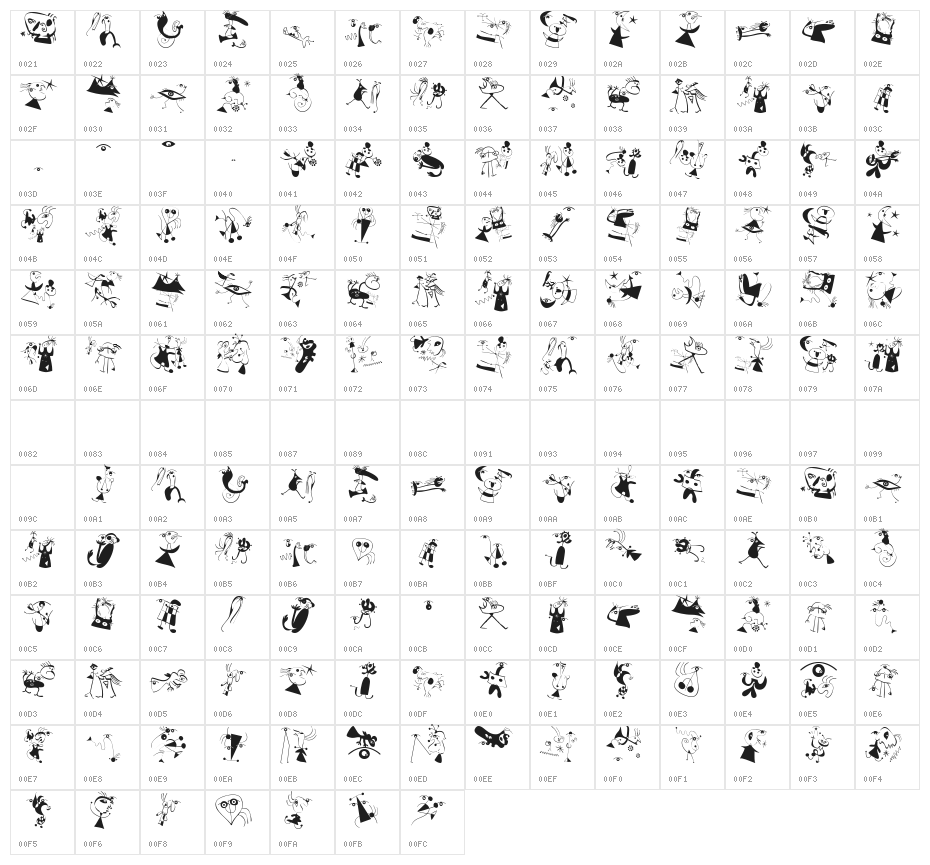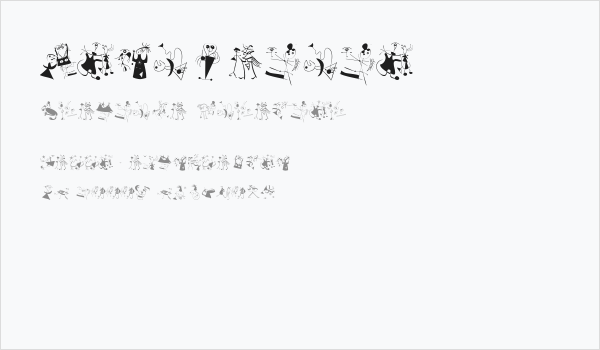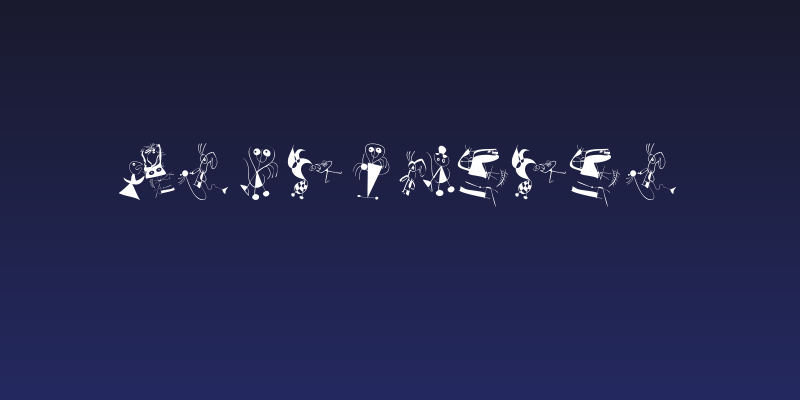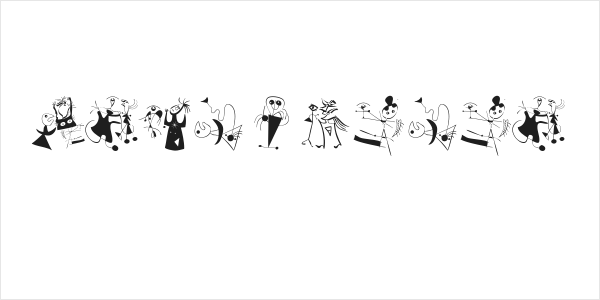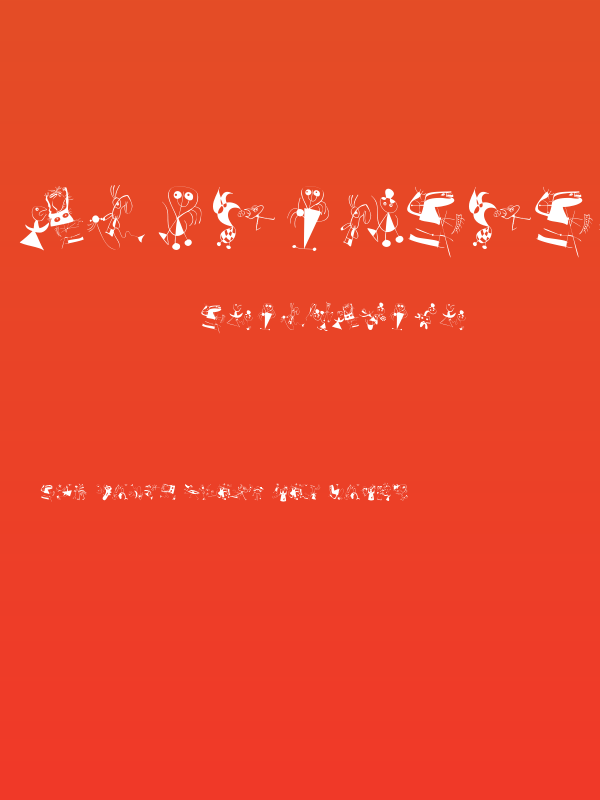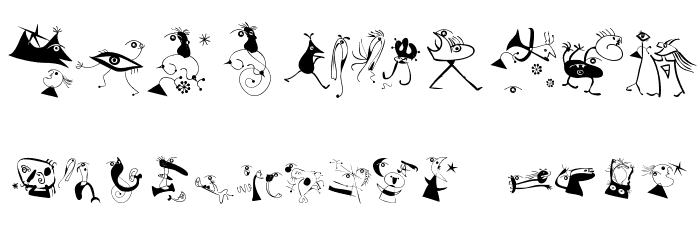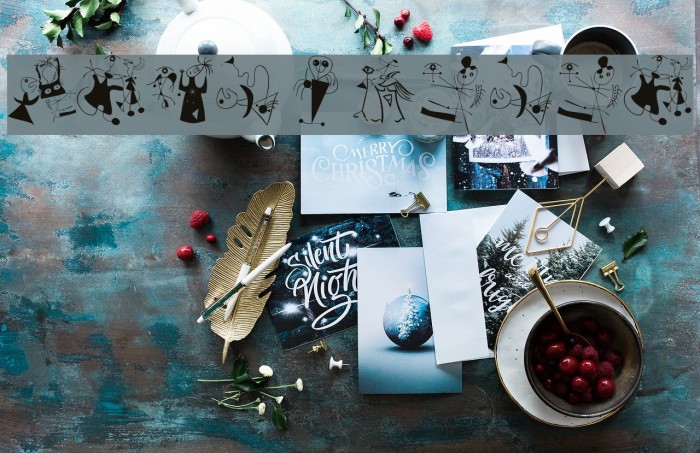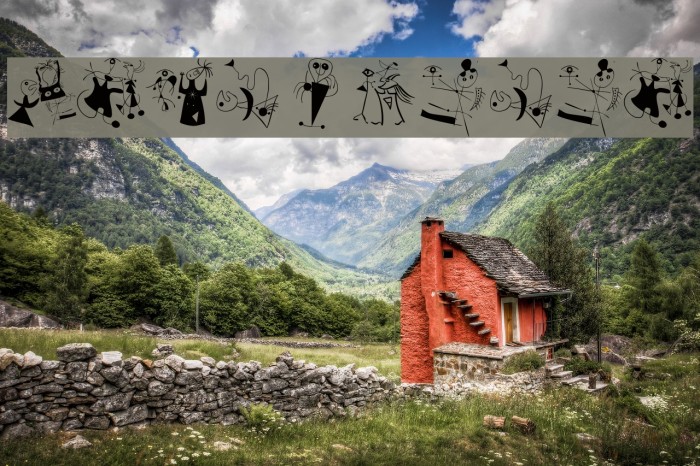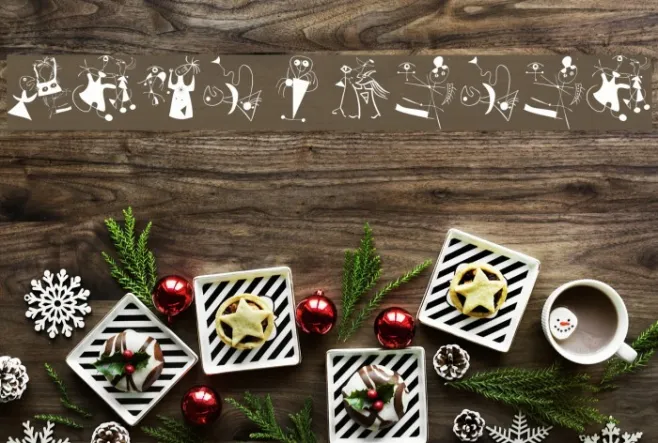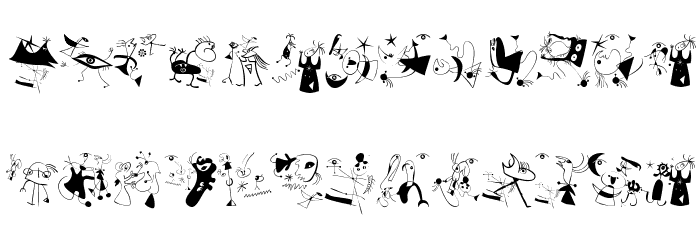
RomiPetito Font
RomiPetito Description
This is a highly decorative and whimsical font that features playful, abstract characters. Each letter is represented by a unique, artistic figure that combines elements of surrealism and cartoon-like features. The characters are composed of various shapes and lines, creating a dynamic and lively appearance. The font does not adhere to traditional letterforms, instead offering a creative and imaginative interpretation of the alphabet. This style is reminiscent of abstract art, with each character appearing as a small piece of artwork. The overall design is bold and eye-catching, making it suitable for projects that require a distinctive and artistic touch.
| Use Case | Logos, Posters, Artistic Projects |
| Proposed Projects | Ideal for creative projects such as children's books, art posters, and unique branding materials. |